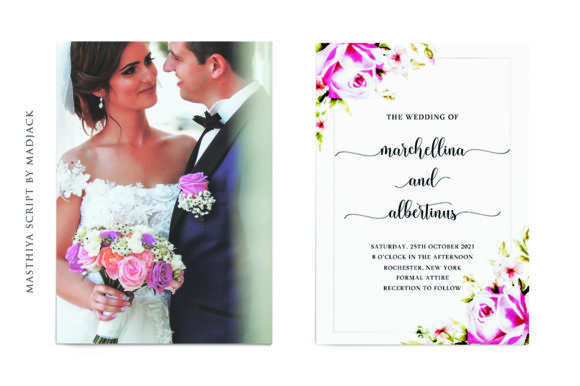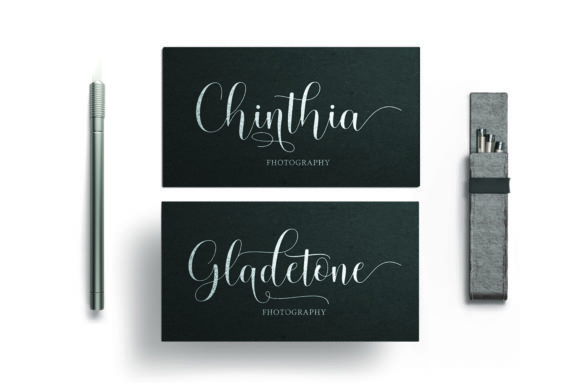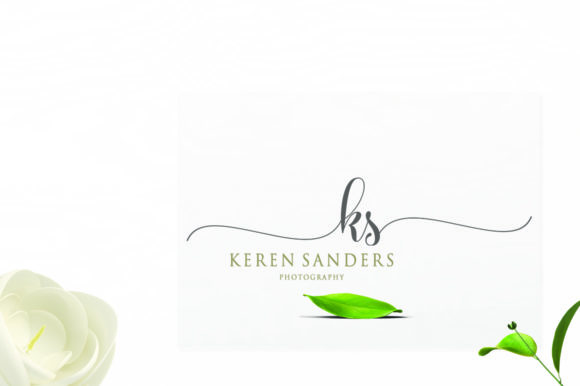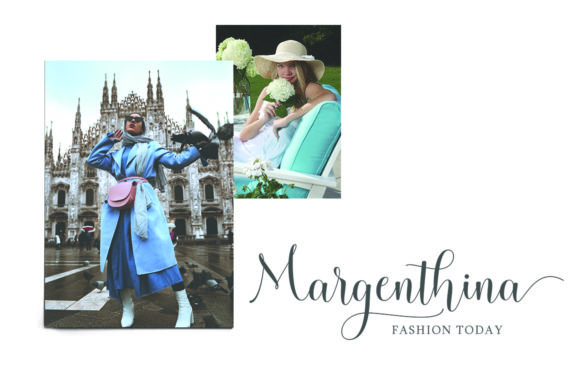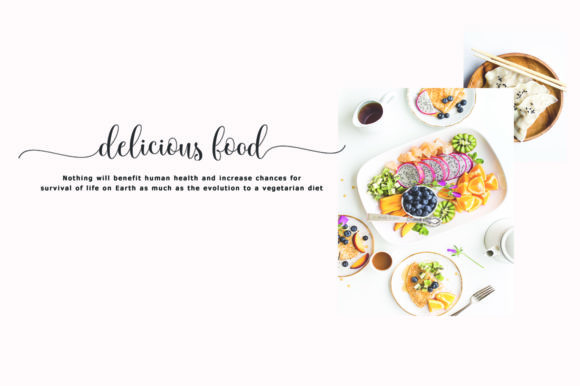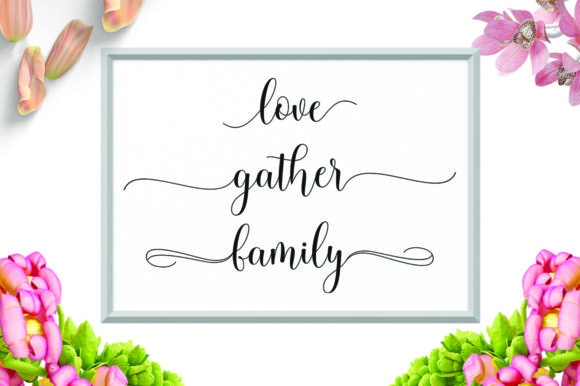
Introduction to Masthiya Font
Do you remember the moment when you stumbled upon the perfect design resource that elevated your creative project to new heights? For designers, finding that one special font can be a game-changer. It’s like discovering a hidden treasure that instantly transforms your work into something truly exceptional. This is exactly what happens when you fall in love with the Masthiya Font.
With its elegant and flowing handwritten style, Masthiya Font is a high-quality design resource that’s sure to impress. Its PUA encoding allows for easy access to all the glyphs and swashes, making it a breeze to customize and personalize your projects. Whether you’re working on a branding project or creating a beautiful invitation, Masthiya Font is the perfect companion to help you achieve a professional and polished look.
Masthiya Font
- High-quality design resource for creative projects, offering a unique and stylish look.
- Comes with a transparent background, allowing for easy customization and integration into various design elements.
- Perfect for designers and artists looking for a high-quality, professional font for their projects.
- Designed with a high resolution (up to 300 DPI) for optimal clarity and readability.
- Available in a single weight, making it easy to use in a variety of design contexts.
Honest Review: Masthiya Font
I recently stumbled upon the Masthiya Font, and I must say, it’s a game-changer for any creative project. This free download offers a unique touch that can elevate your designs to the next level. One of the standout features of this font is its high quality and versatility.
- ✨ Unique and stylish design, perfect for modern designs
- ✨ Supports various languages, making it a great resource for international projects
- ✨ Offers a transparent background, ideal for graphic designs and illustrations
- ⚠️ The font might not be suitable for formal or traditional designs, as it’s quite modern and edgy
- ⚠️ The font family is relatively small, which might limit its usability for large-scale projects
Overall, I’m impressed with the Masthiya Font, and I’d highly recommend it as a design resource for any creative project. Its unique style and high quality make it a great addition to any font library. Just be aware of its limitations, and you’ll be able to unlock its full potential.
Tips for Getting the Most Out of Masthiya Font
The Masthiya Font is a versatile design resource that can be used for a variety of projects, including presentations, documents, and creative projects. It is particularly useful for creating graphics and designs with a transparent background and a high-quality finish.